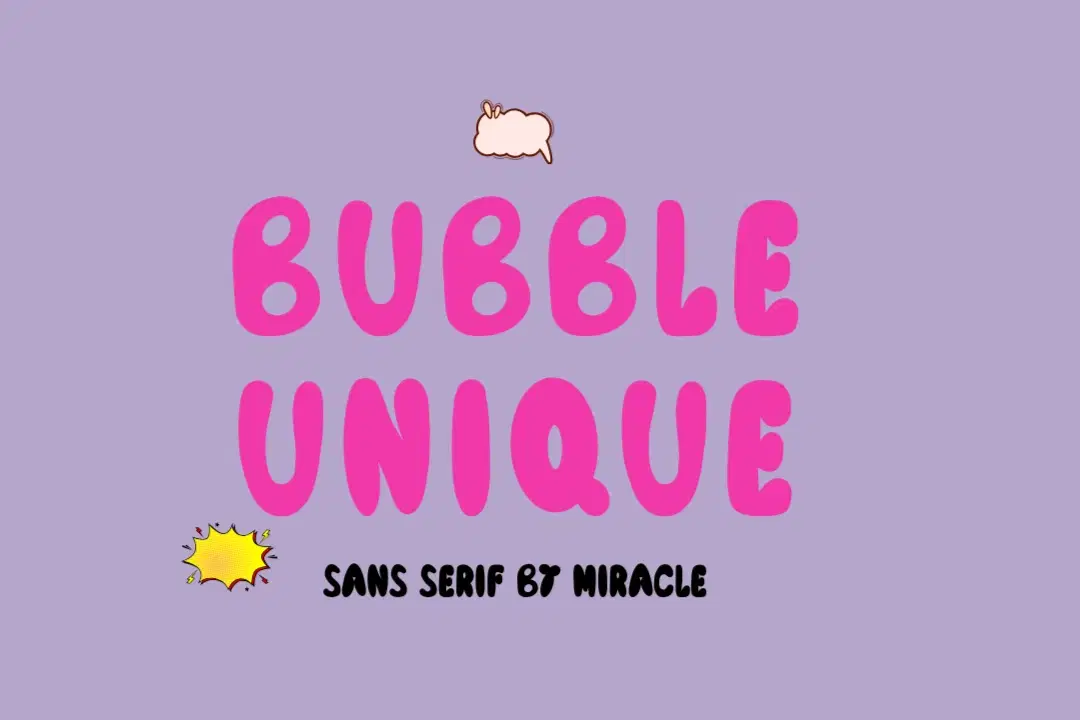
Make a statement with Bubble Unique, a vibrant and bold sans serif font by Miracle. This font is all about personality, featuring thick, rounded letterforms that pop off the page. It’s designed for those who want to combine a modern aesthetic with a playful, high-energy vibe.
Bubble Unique is the perfect choice for attention-grabbing headlines and youthful branding. Its solid presence and soft edges give it a unique "bubbly" look that remains professional and highly readable, making your creative projects stand out with confidence.